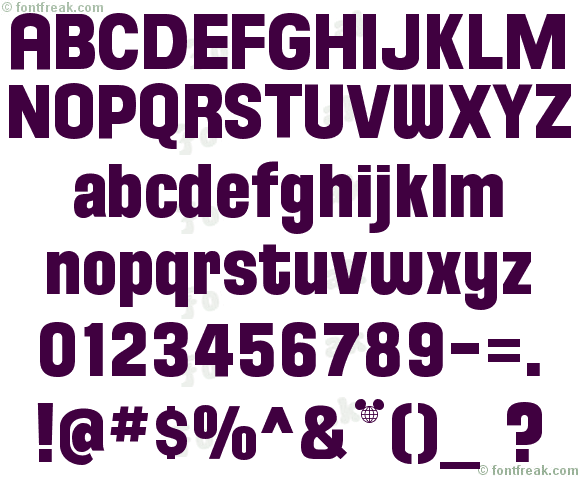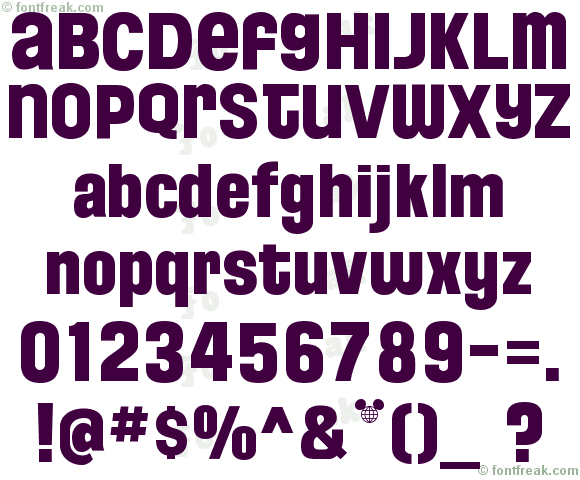
FloridaProject-PhaseOne
FloridaProject-PhaseTwo
The FloridaProject-PhaseOne font by Justin Callaghan is a striking display typeface that embodies a contemporary aesthetic while drawing inspiration from classic design principles. As a freeware font, it offers a unique opportunity for creative professionals to enhance their projects without any licensing concerns. This font features bold, geometric letterforms, characterized by a consistent stroke weight and minimal contrast, making it versatile and easy to read. The spacing is well-balanced, contributing to its overall clarity and impact.
The visual design of FloridaProject-PhaseOne is both modern and approachable, making it suitable for a variety of applications. It works exceptionally well for movie posters, where its bold presence can capture attention and convey a strong message. Additionally, it is an excellent choice for restaurant menus, providing a clean yet stylish look that enhances the dining experience. Graphic designers will find it useful for branding projects, helping to establish a distinct identity for businesses. Other great use cases include social media graphics, promotional materials, and event invitations, where the font can add a touch of sophistication while remaining highly legible.
Targeted at graphic designers, small business owners, and content creators, FloridaProject-PhaseOne font free download makes it accessible for anyone looking to elevate their visual communication. The font stands out for its balance of modernity and readability, making it a dependable choice for diverse projects. Its unique design elements and versatility ensure that it can be used effectively across various mediums, setting it apart from other typefaces in the market. Whether for professional or personal use, this font offers a fresh take on typographic design that will surely leave an impression.